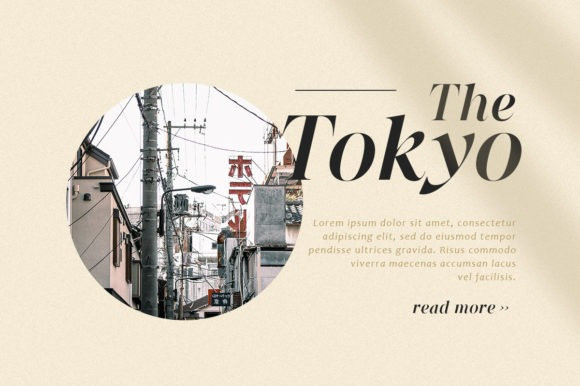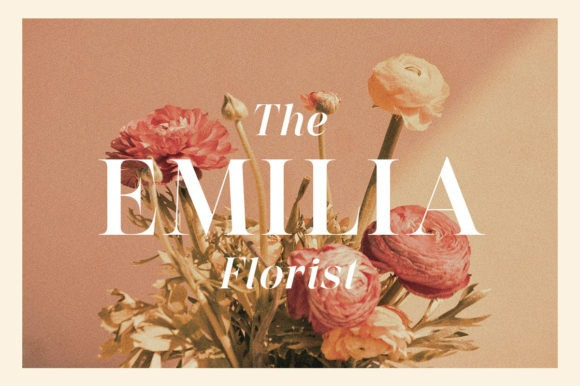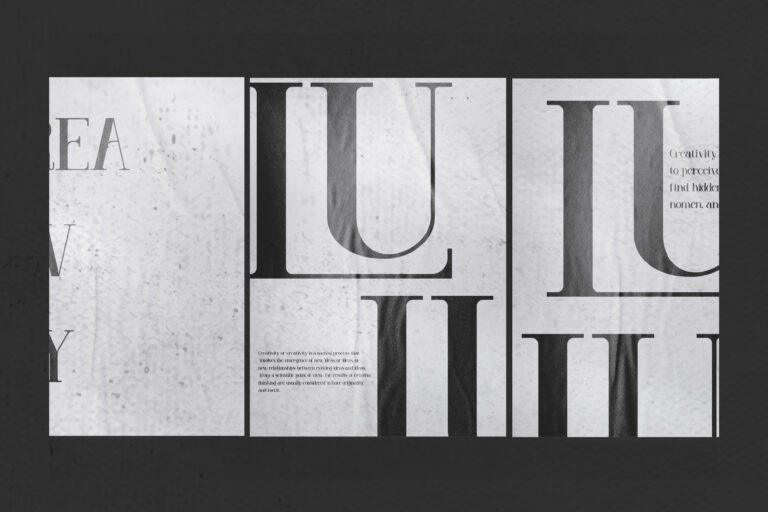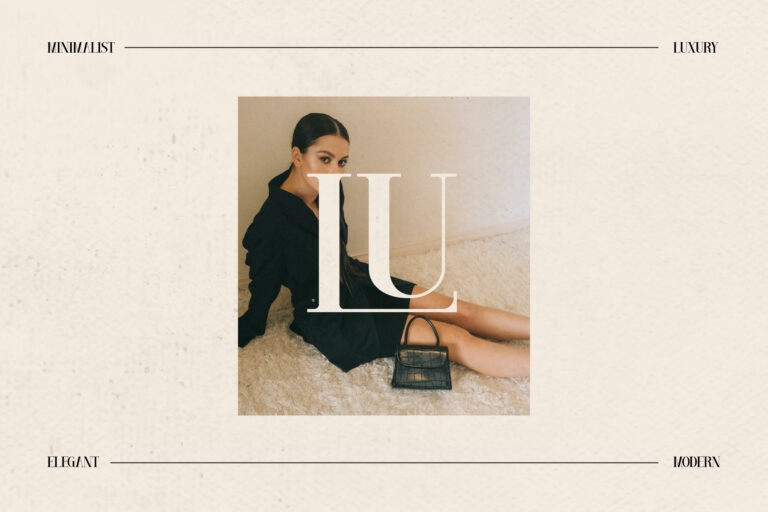
Between Days Serif Font
Between Days is a classic, chic and distinct serif font. It is ideal for writing web designs, business cards, or pretty much anything else that requires a unique touch.